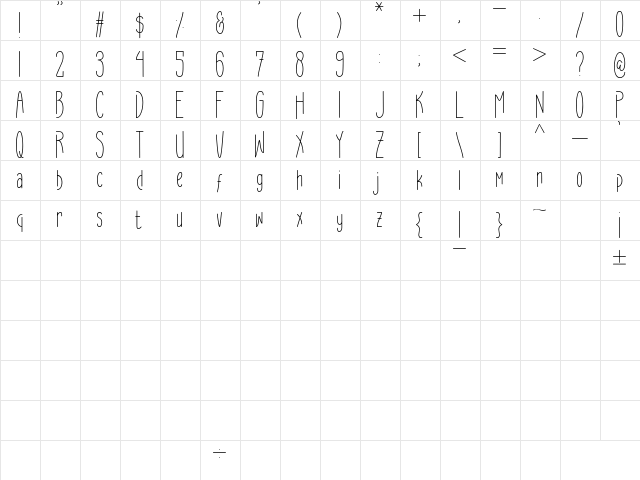
Avoid Light Regular Font Preview
Avoid Light Regular
Design Context for Avoid Light Typeface
Avoid Light offers clean, dependable letterforms without strong stylistic allegiance, making it a practical choice for designers who need flexibility. Its slender proportions lend an understated elegance to any composition.